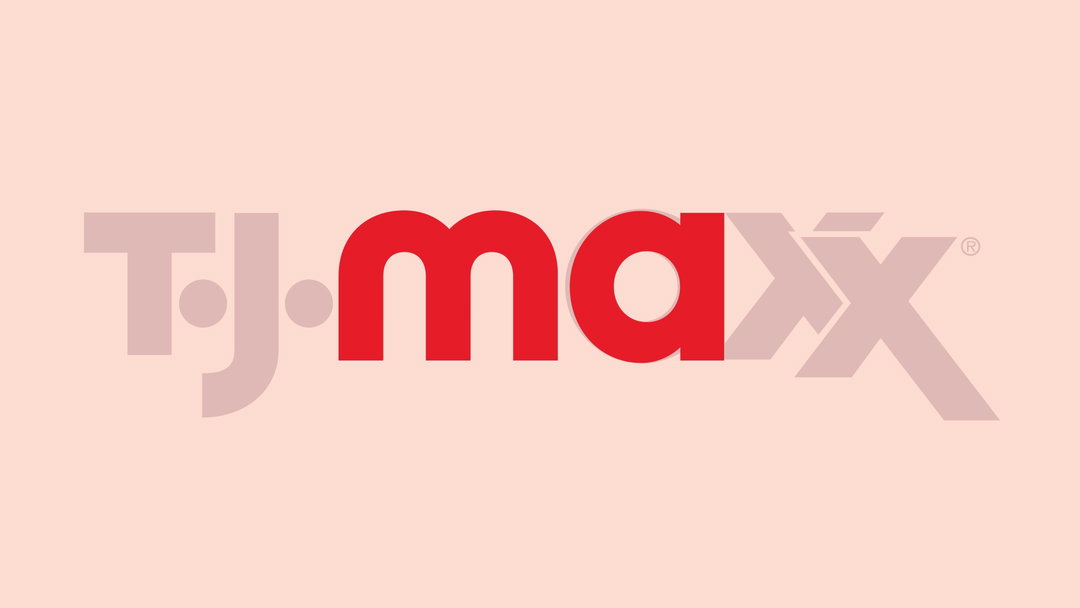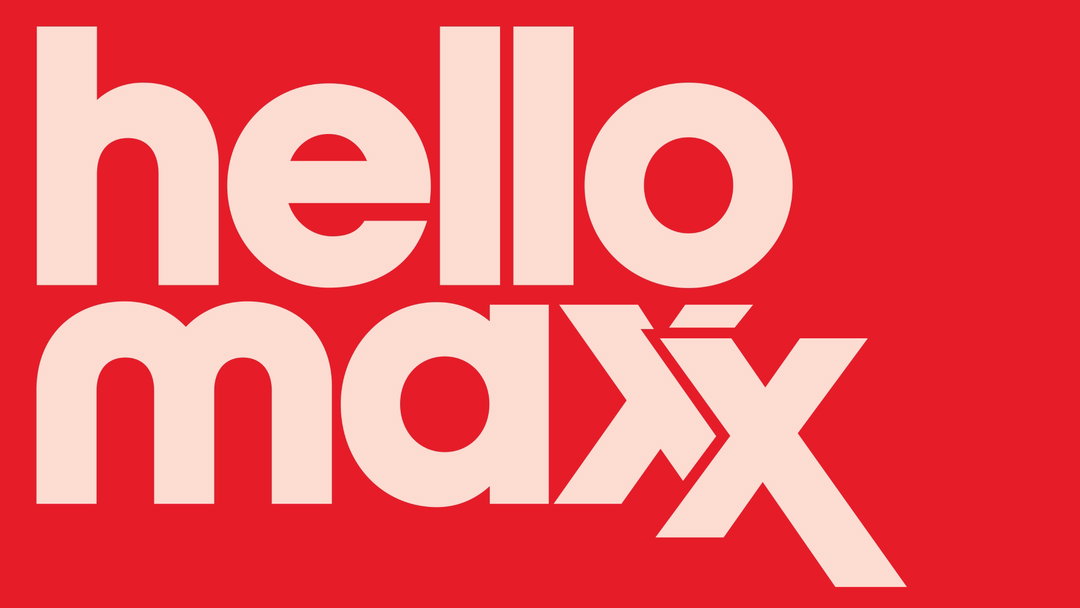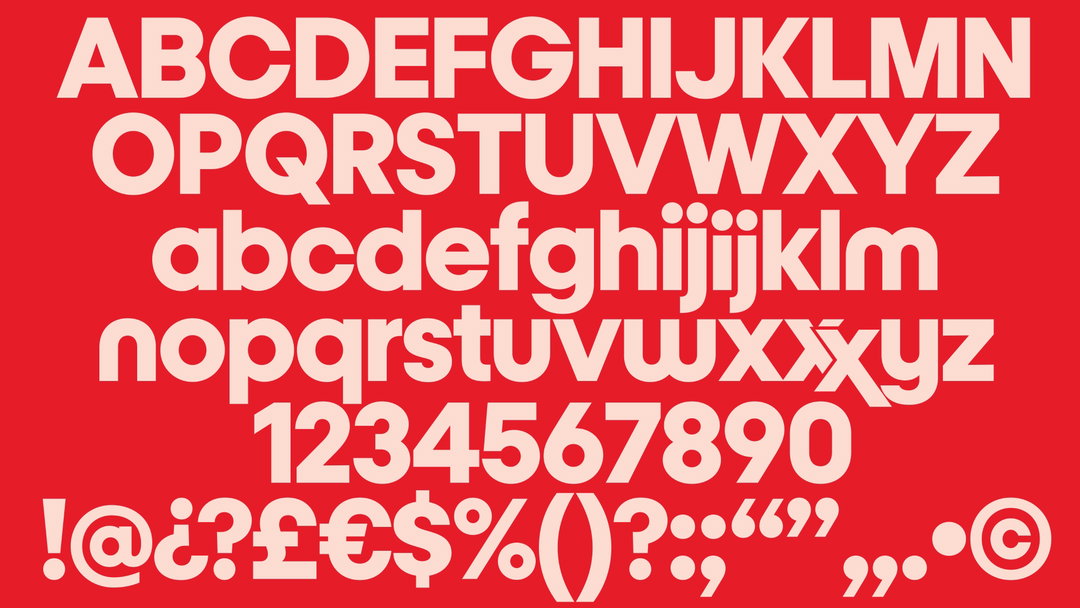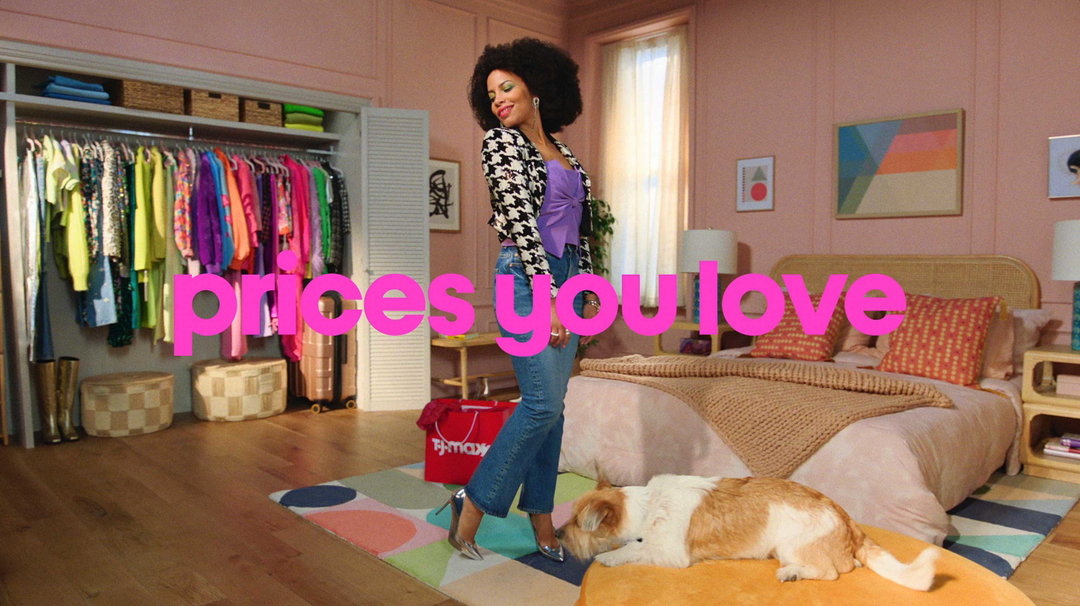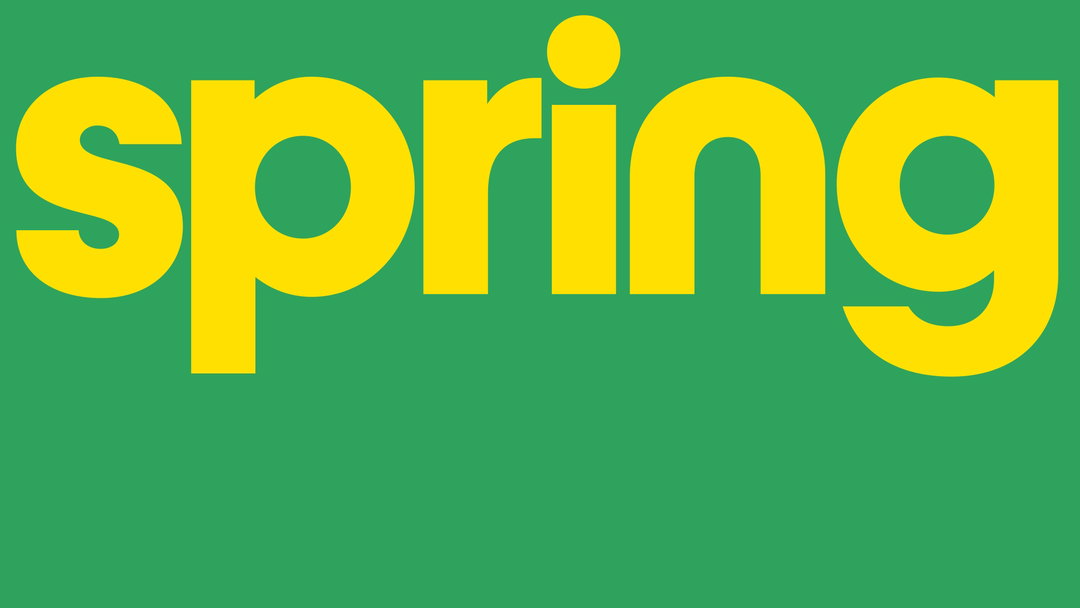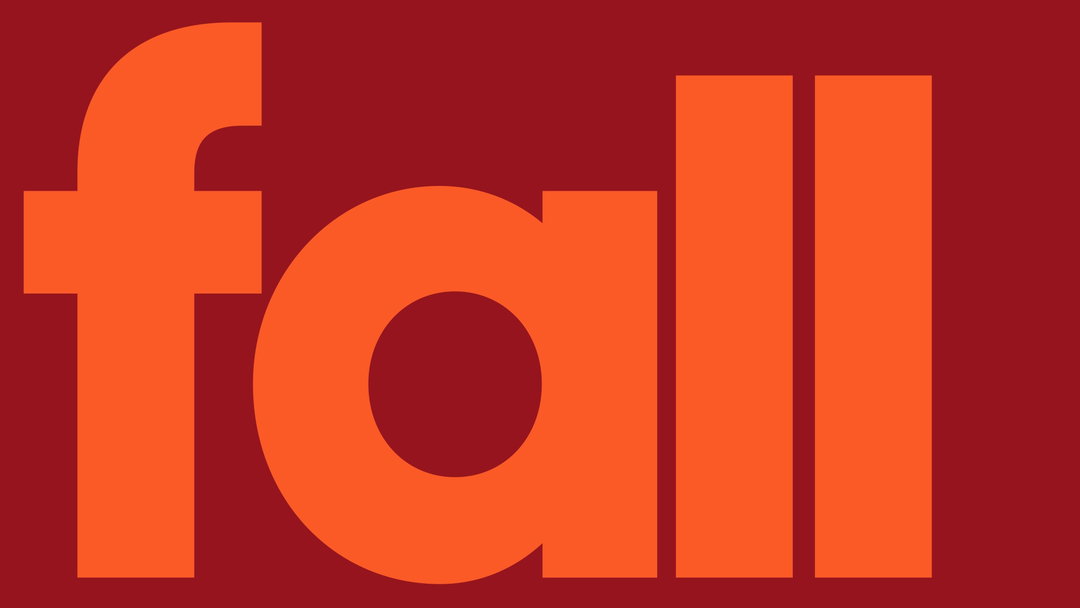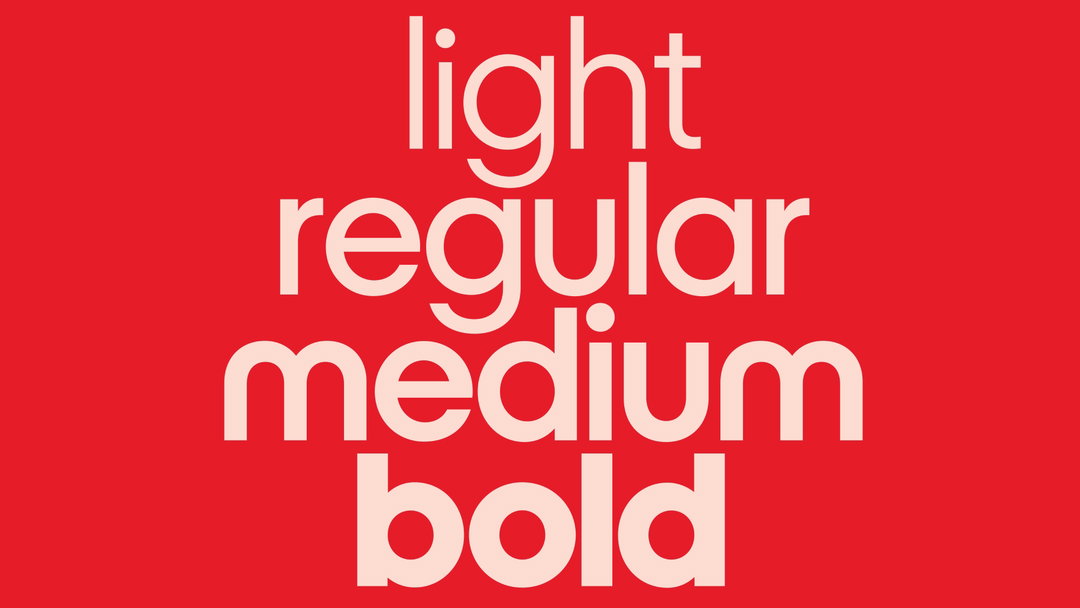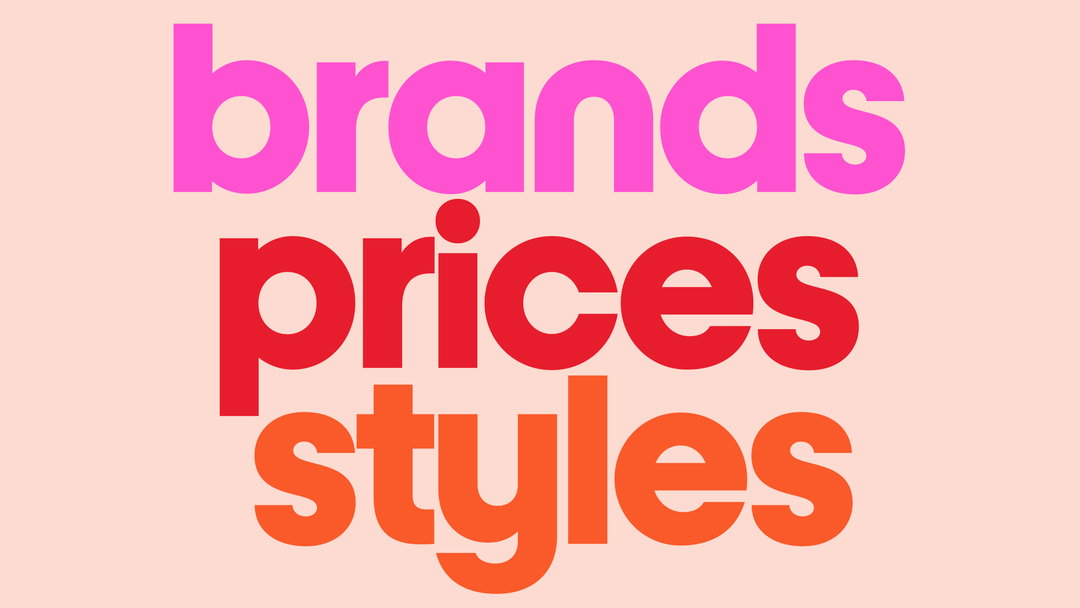
First custom brand font for TJ Maxx built by McCann Design
McCann, along with MCKL type and design studio, revolt against retail’s overreliance on Helvetica and turn the TJ Maxx logo into a font.
TJ Maxx, or TK Maxx as it’s known in the UK, has traditionally used Helvetica for its brand typeface. It was in good company in the US, where Helvetica “still dominates” in retail marketing, says Matt van Leeuwen, head of design at McCann in New York. Now, McCann has worked with Jeremy Mickel of MCKL Type and Design to turn the letter shapes of the TJ Maxx logo into a font.
The idea came as McCann was mid-delivery for the advertising campaign, Maxx What Makes You, You. “Anything we tried in Helvetica reminded us of other brands,” says Matt. At the same time, the team had great admiration for the retailer’s original logo; “It is so full of character and lovely idiosyncrasies, and as we started to apply that in big and bold ways in the design system we are developing, we simply had the bright idea to turn the letter shapes of the logo into a font.”
McCann hopes the new font will step into a “long history of strong modernist typography”. Matt says the blend of rounded forms and straight stems particularly brings to mind Herbert Bayer’s Universal Type, which began as an experiment in creating an all-lowercase typeface that could be drawn with a ruler and compass.
The Maxx typeface has a family of four weights and is apparently “chock-full of little gems in the Open Type features”. Typing out two X’s will bring up the option of the famous XX ligature that appears in the logo. There are also alternative shorter glyphs for the I and J, “to close the leading more naturally in tight typesetting”.
The typeface Maxx is currently being used in the US market and will gradually roll out beyond the campaign into wider brand assets. “We set out, at the beginning of the project, to bring iconicity to the brand,” says Matt. “The store experience of TJ Maxx can feel like a discovery, an array of so much apparel and home fashion, and we wanted to cut straight through the noise and get to the core of their identity, with radical simplicity.”